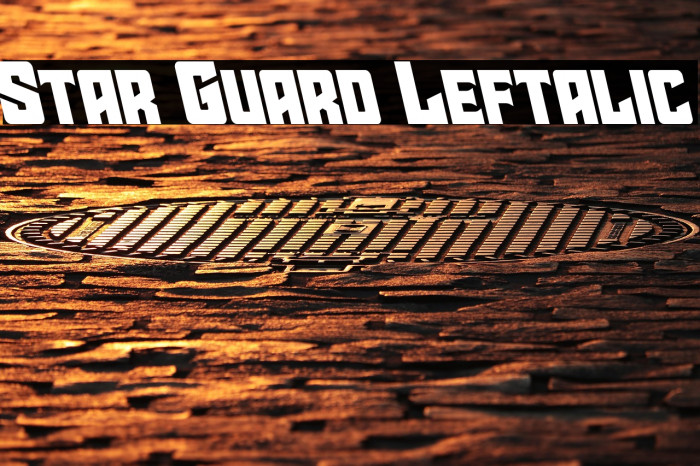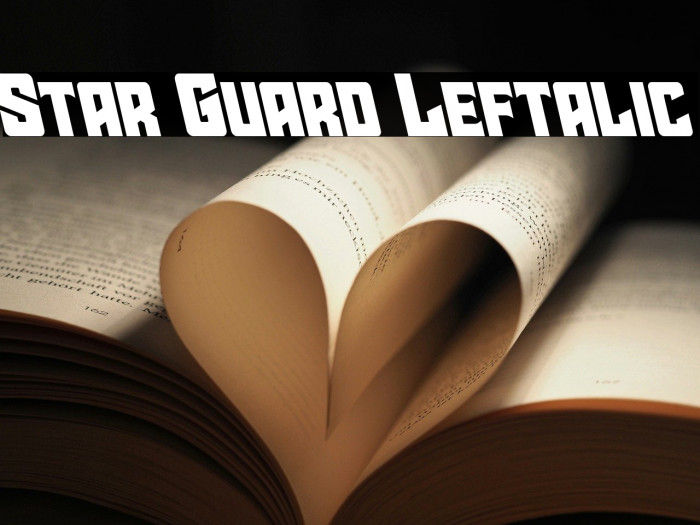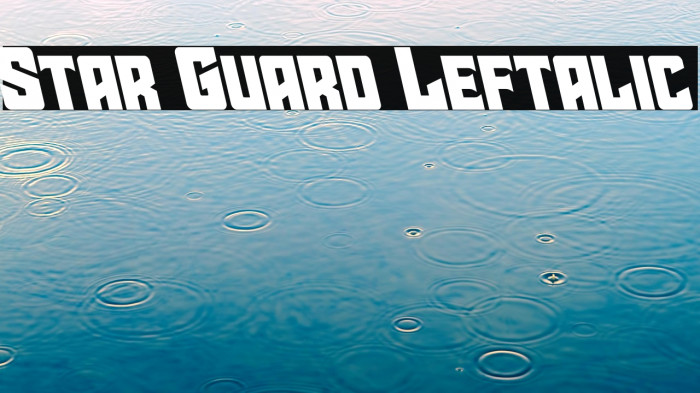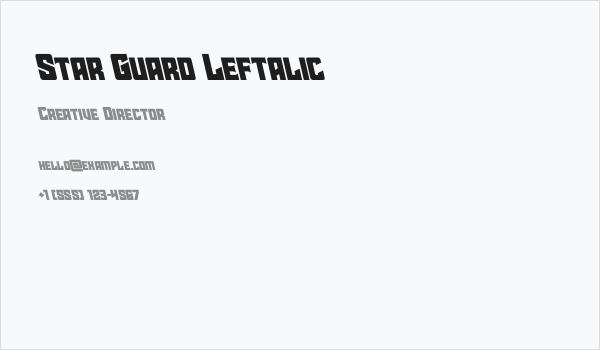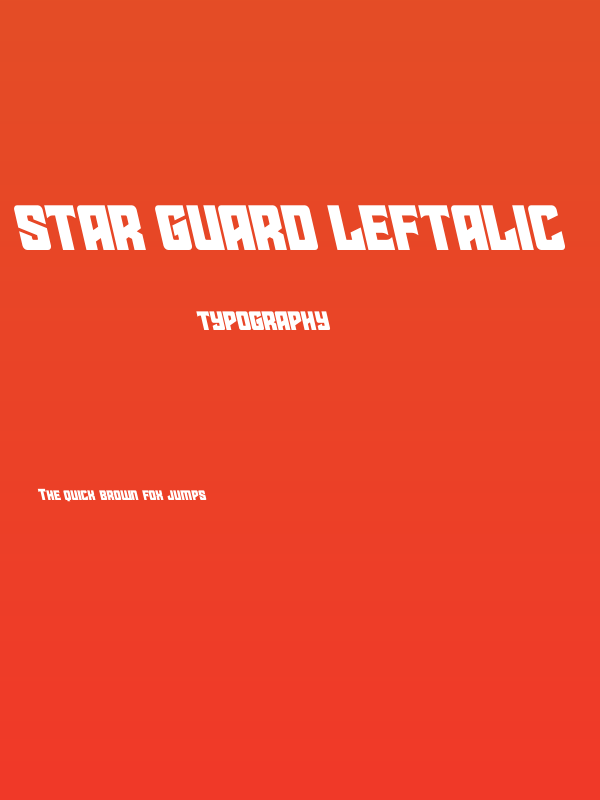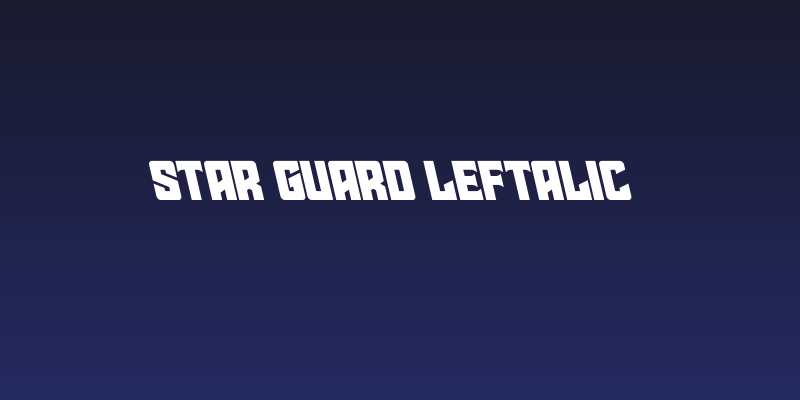
Star Guard Leftalic Font
| Stile generale | Futuristic, Dynamic |
| Progetti proposti | Ideal for sci-fi themed posters, video game titles, and branding for tech companies. |
Star Guard Leftalic